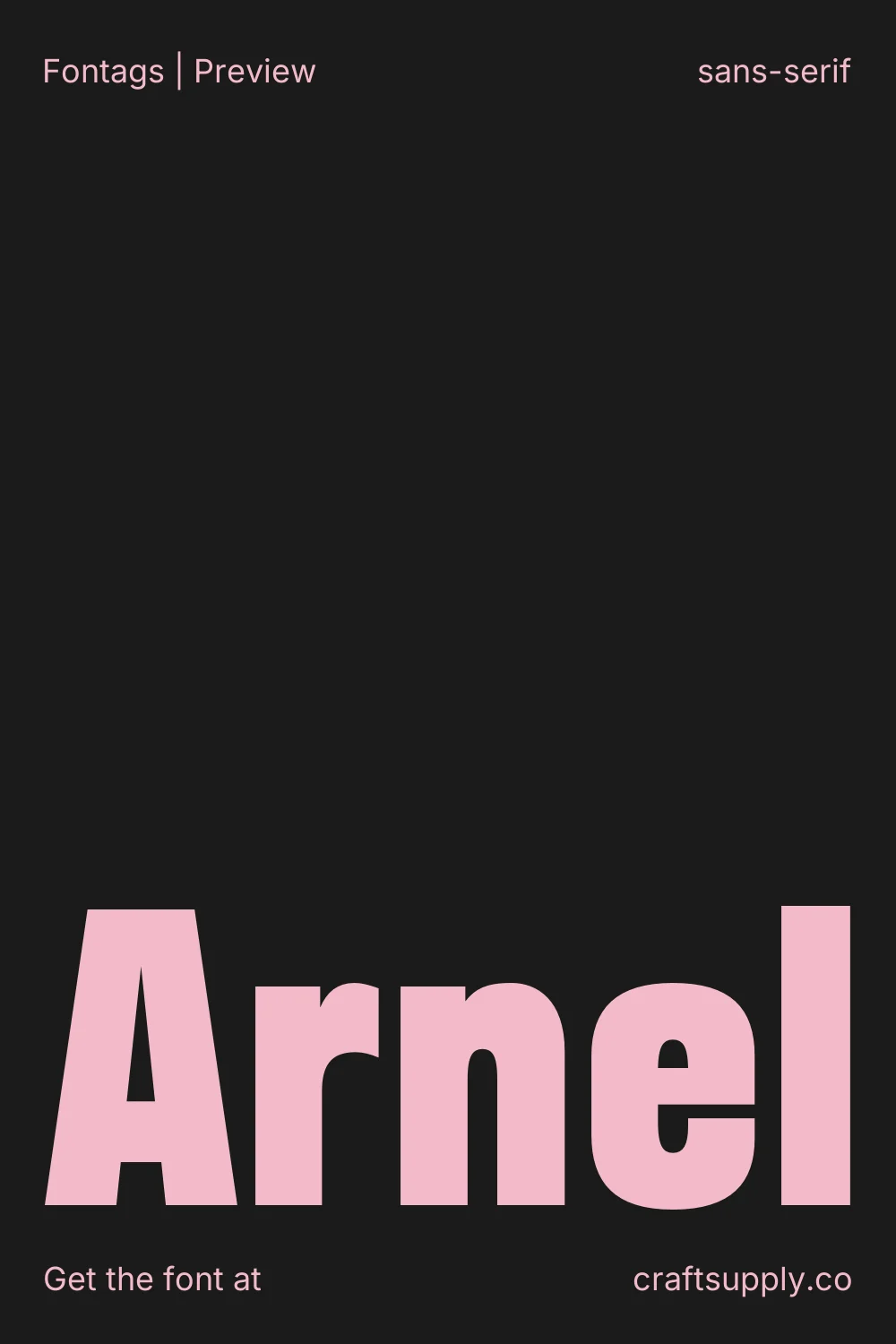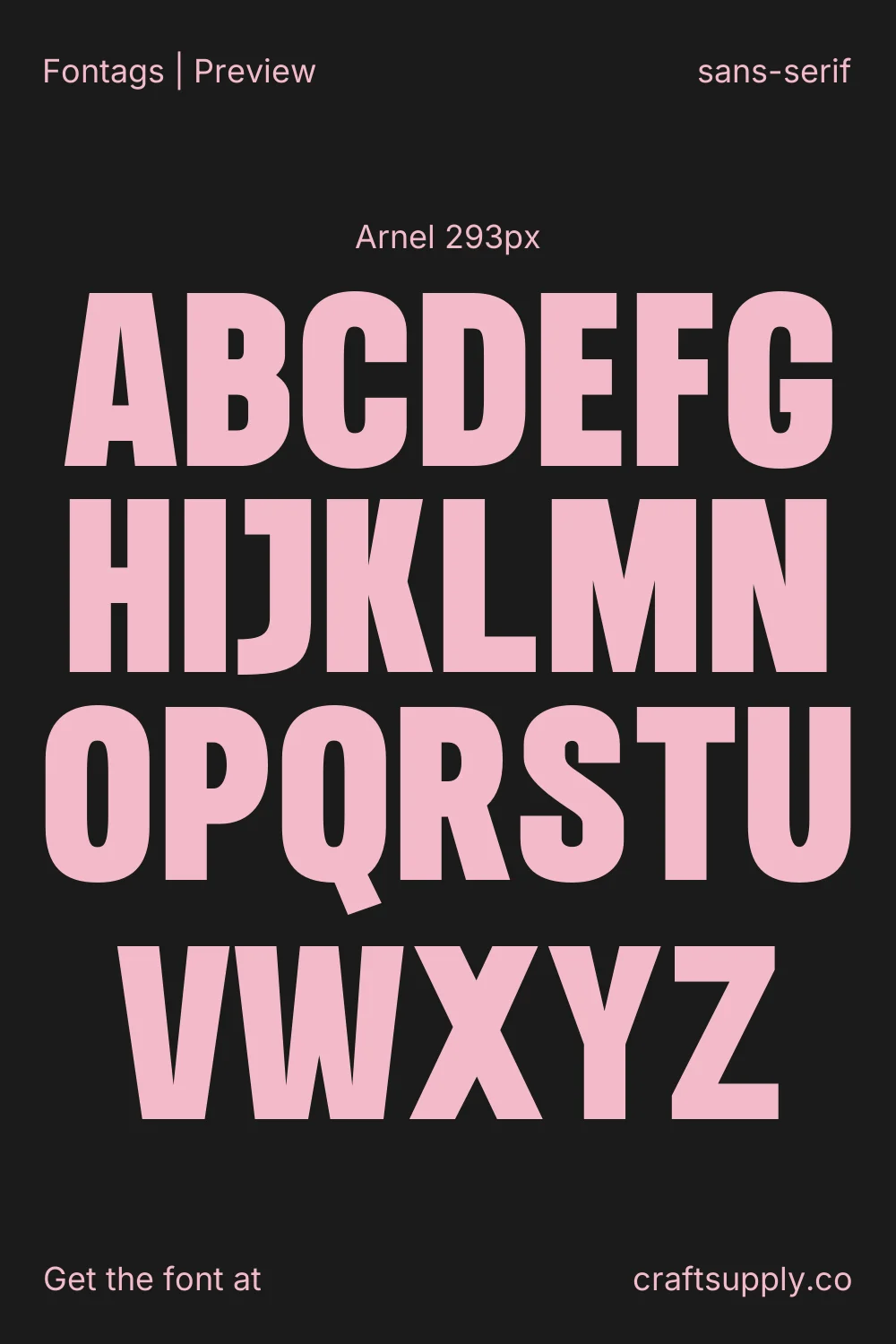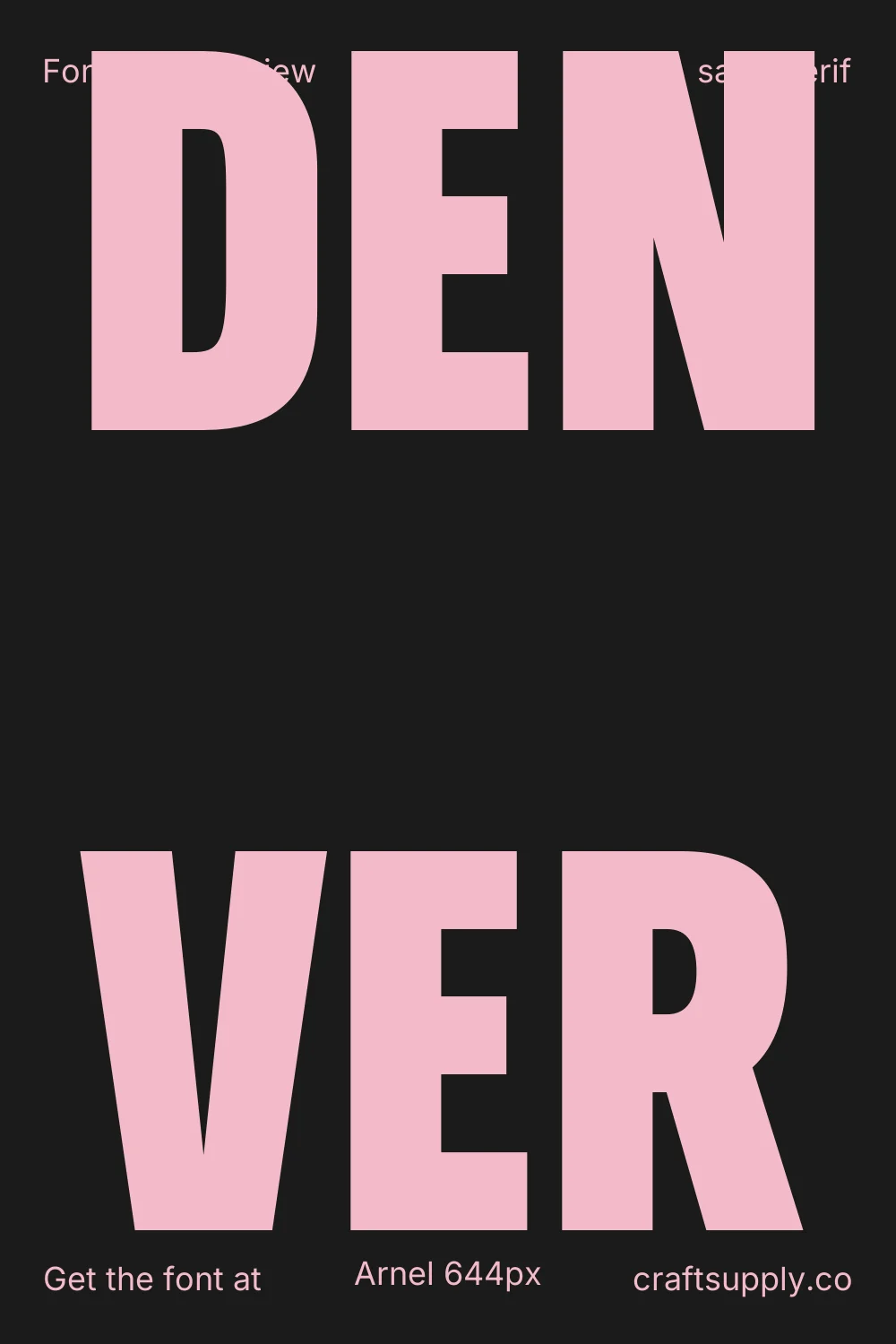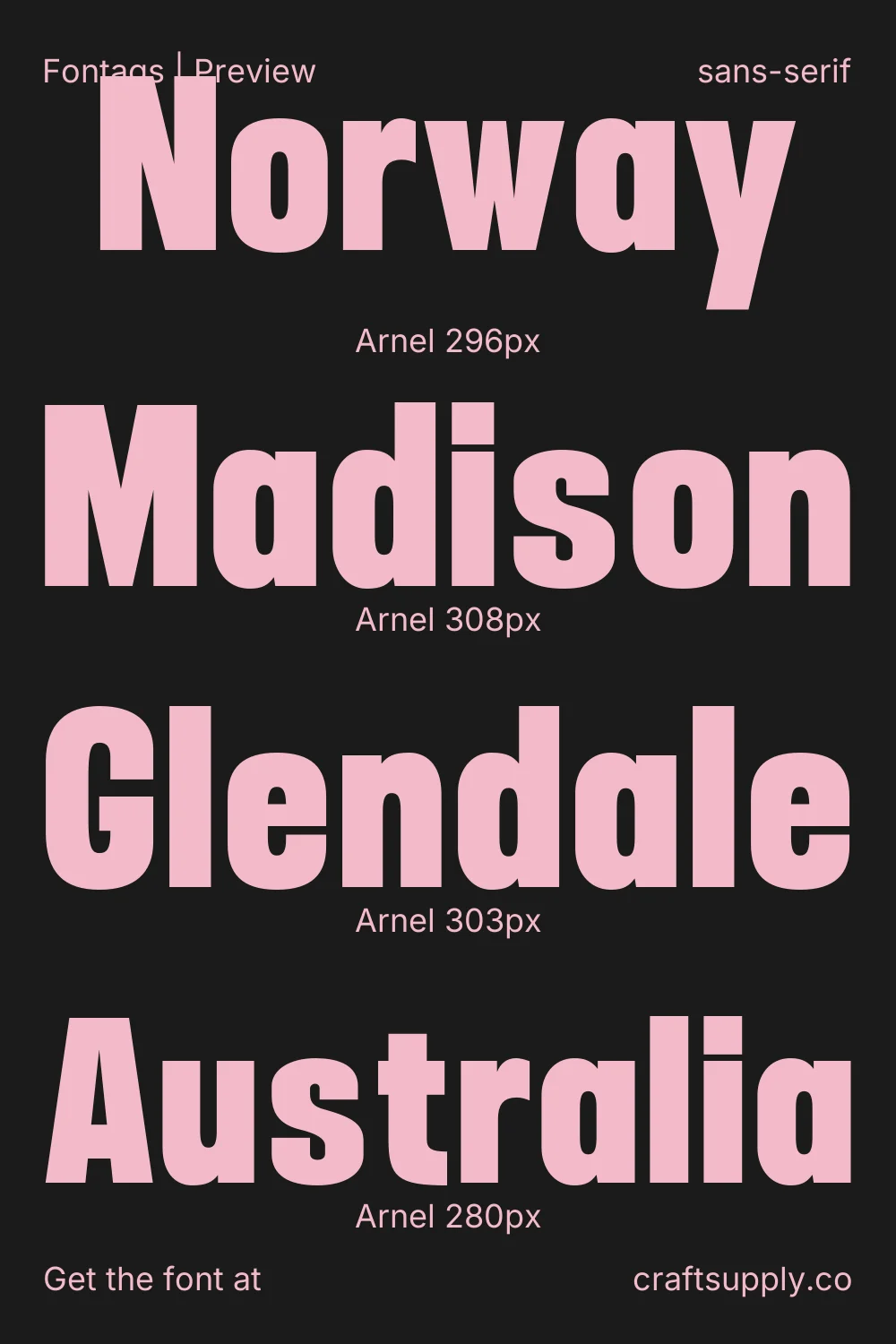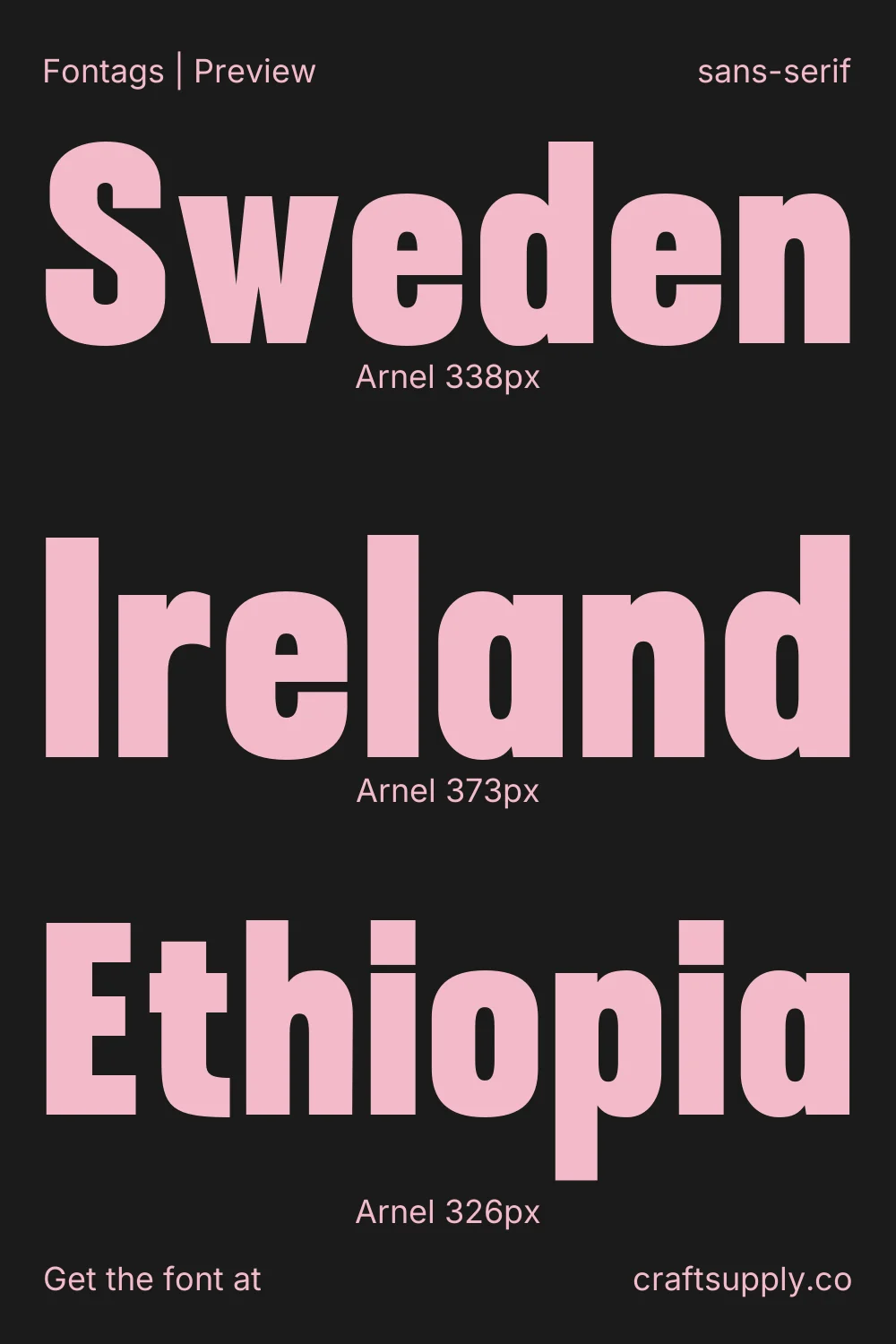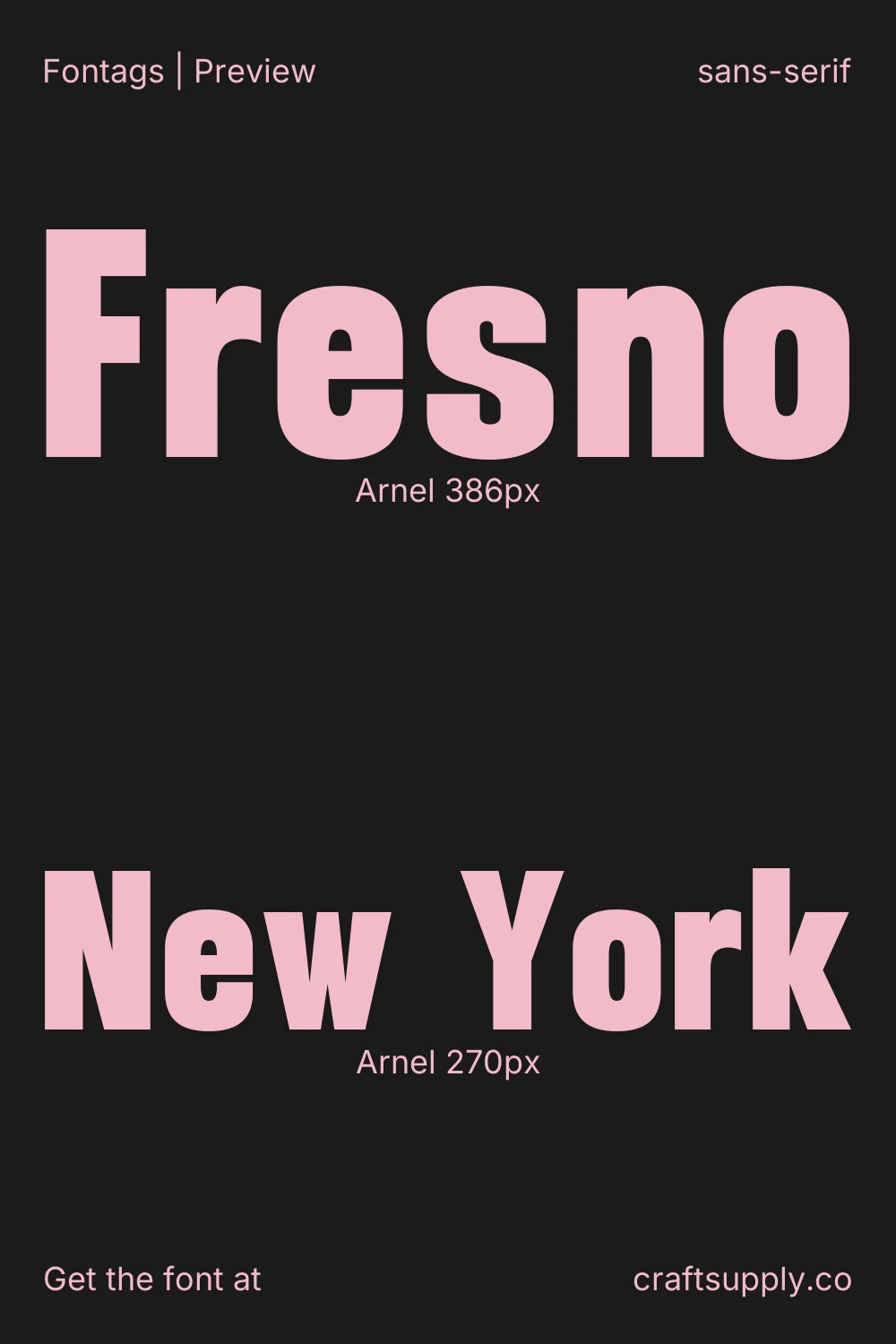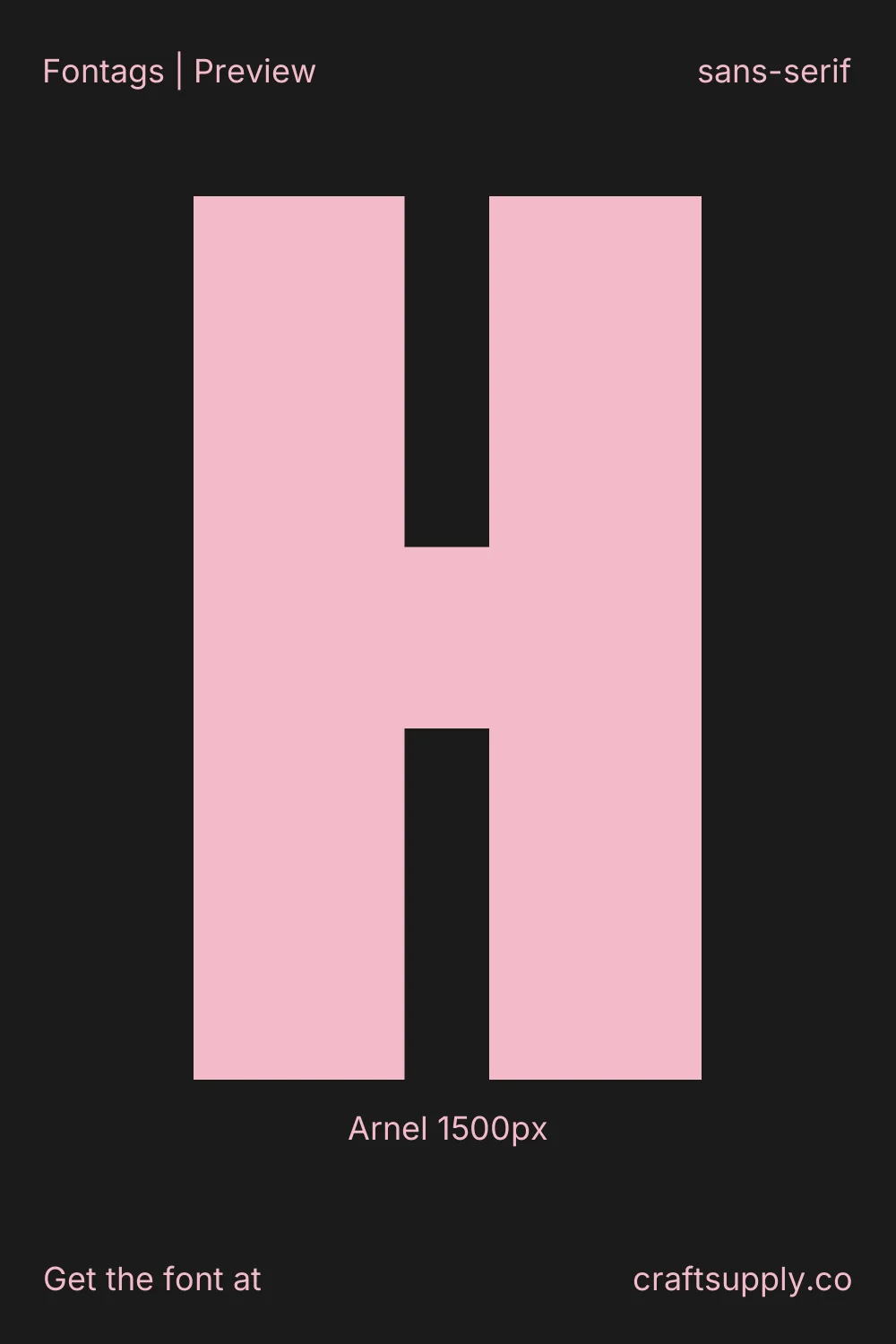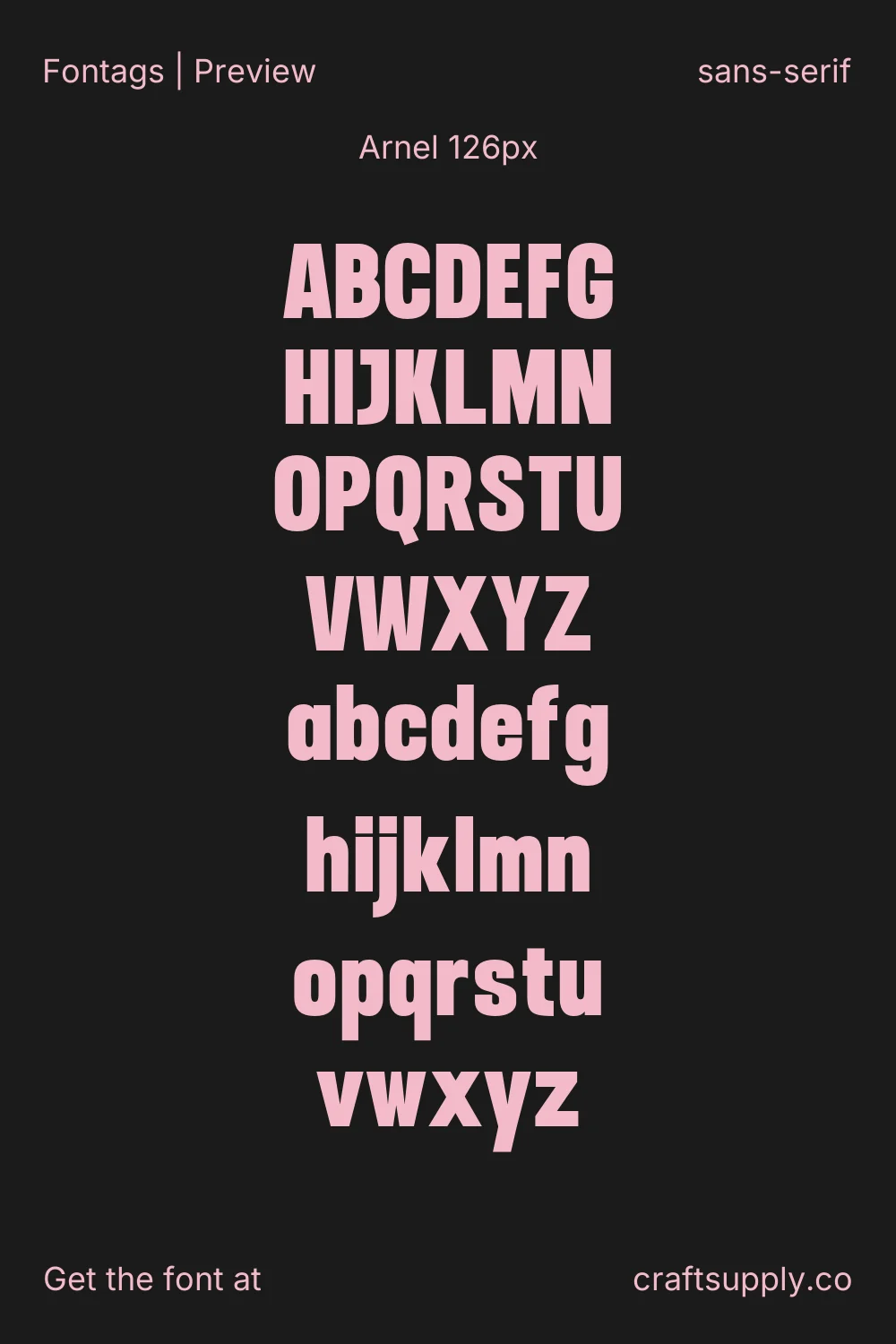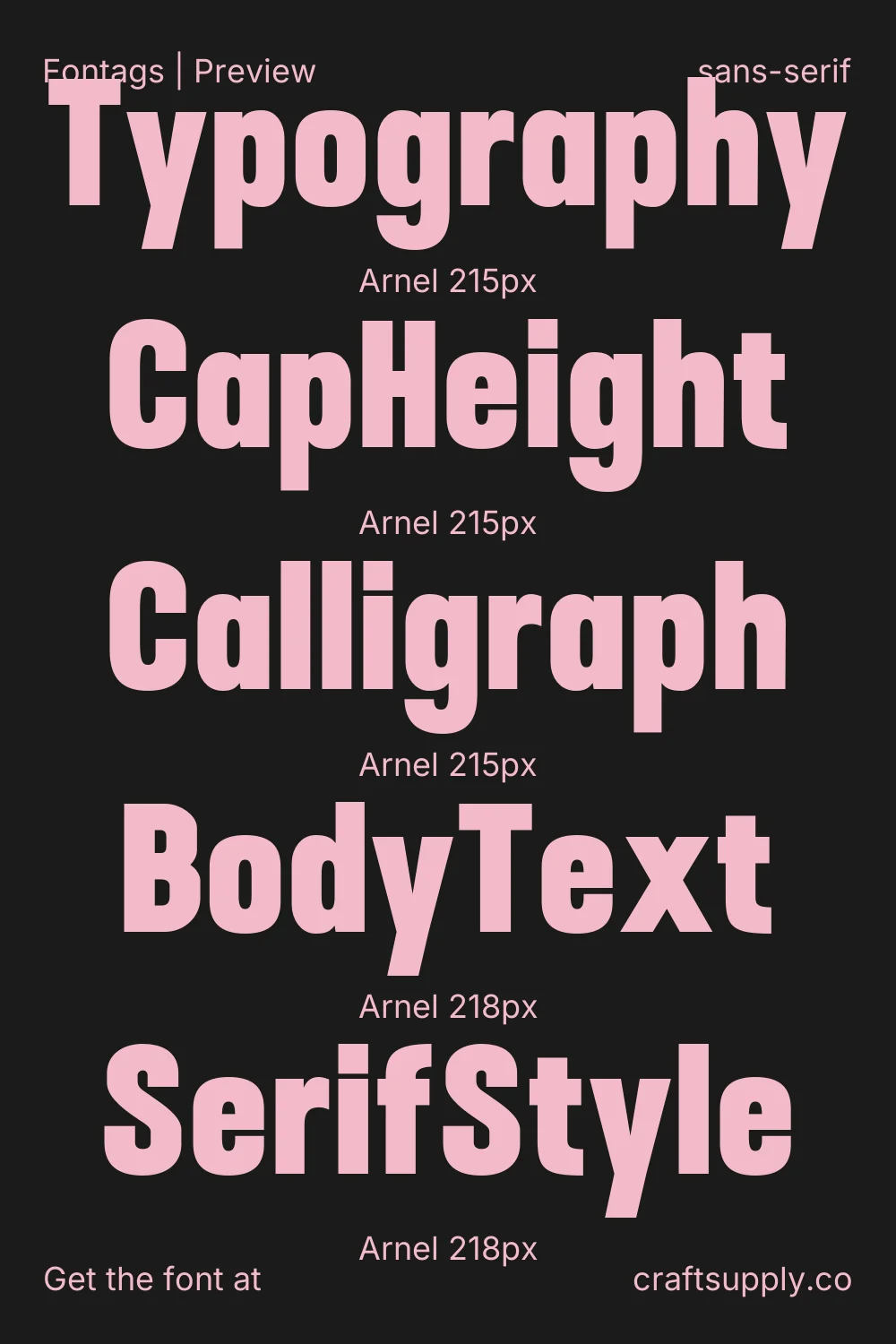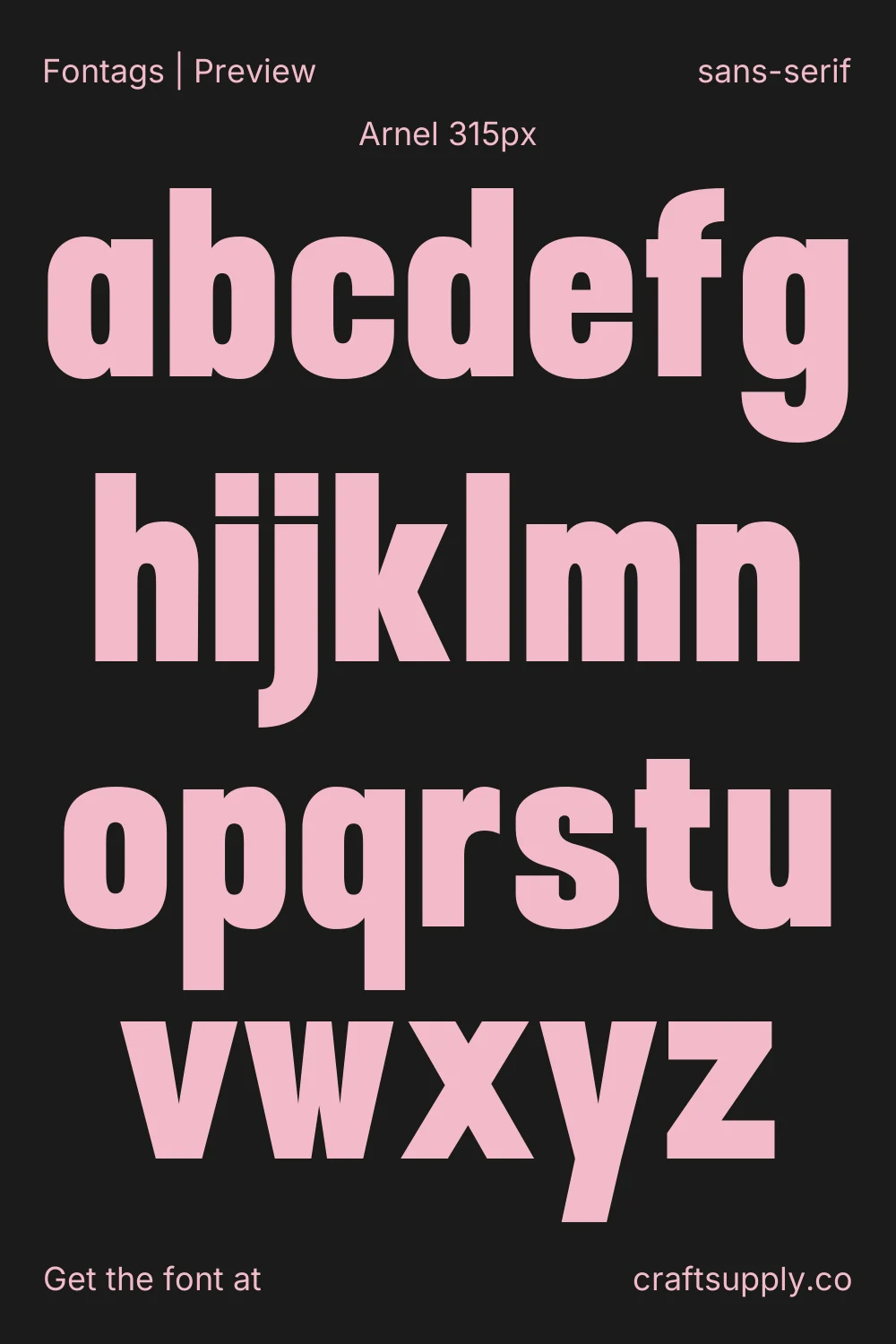
Arnel
Arnel is a bold sans serif typeface designed to command attention with its strong, masculine presence. Its robust letterforms make it ideal for display use in headlines, posters, branding, and advertising where impact matters. The family includes regular and italic styles with full multilingual support.